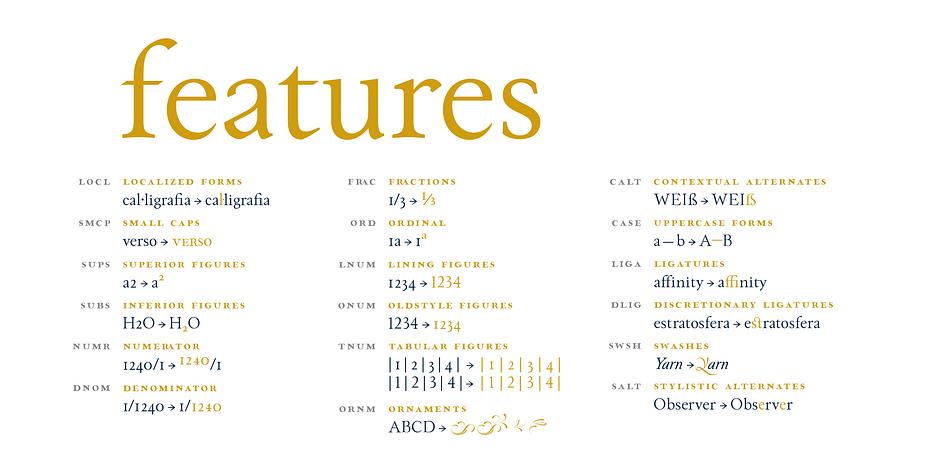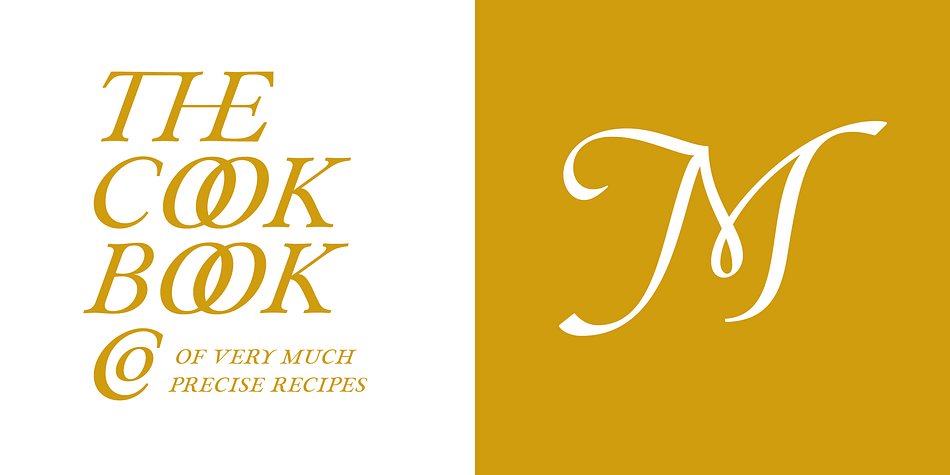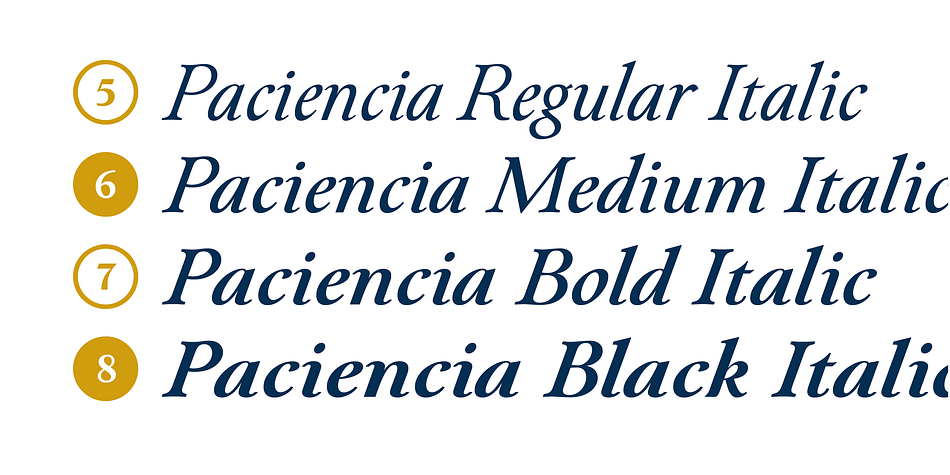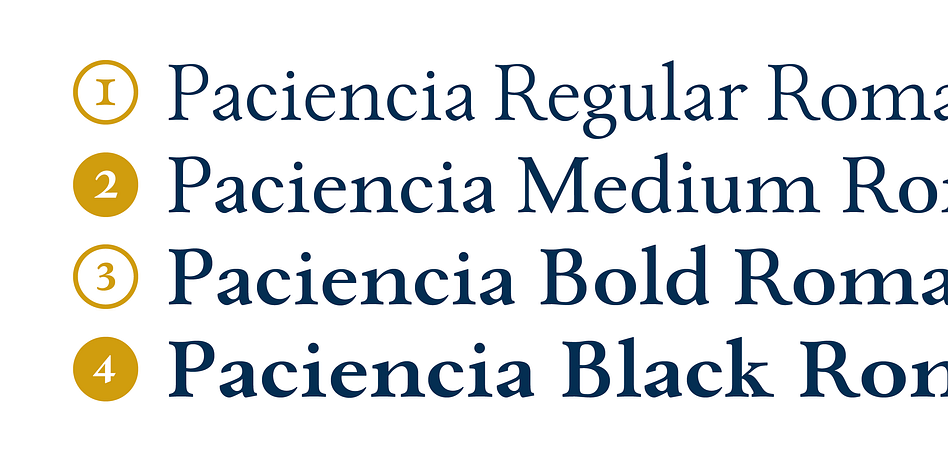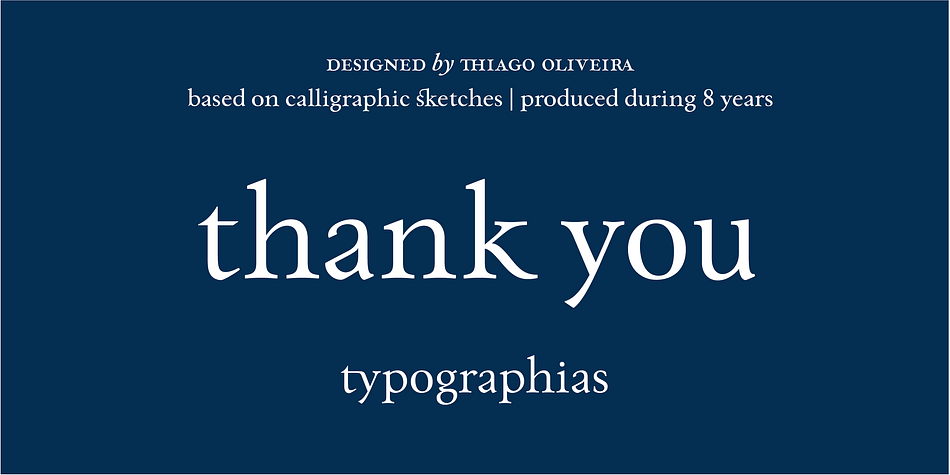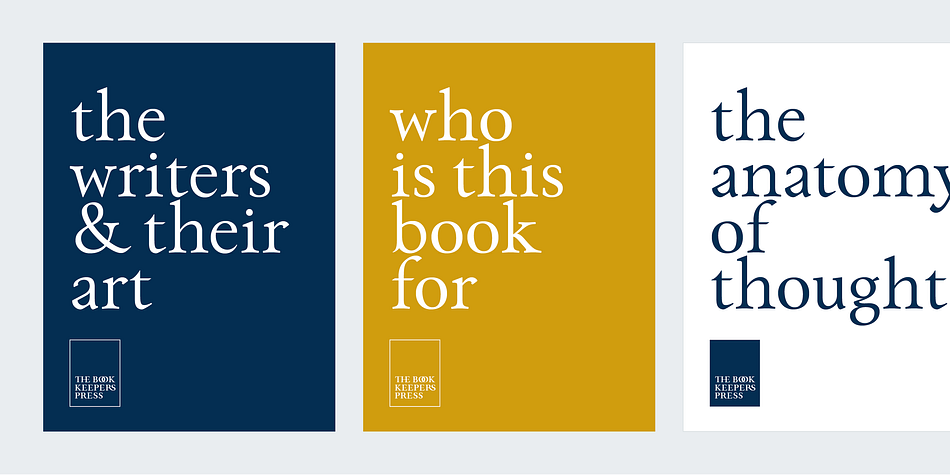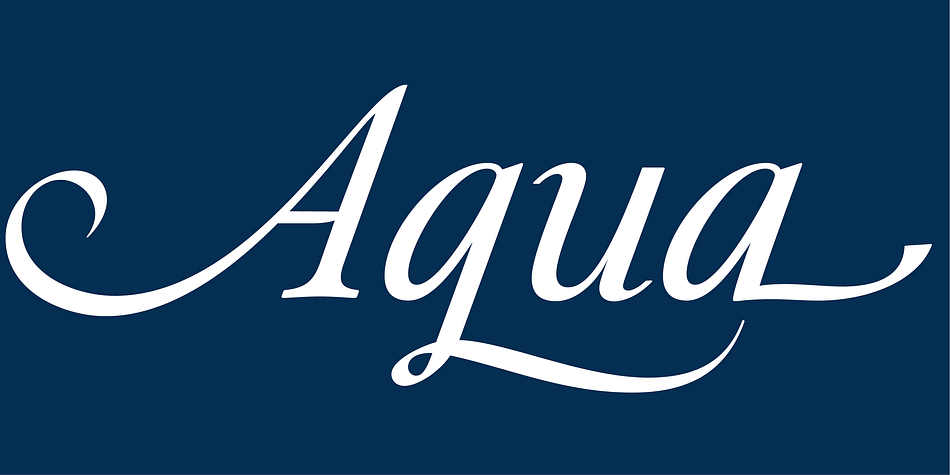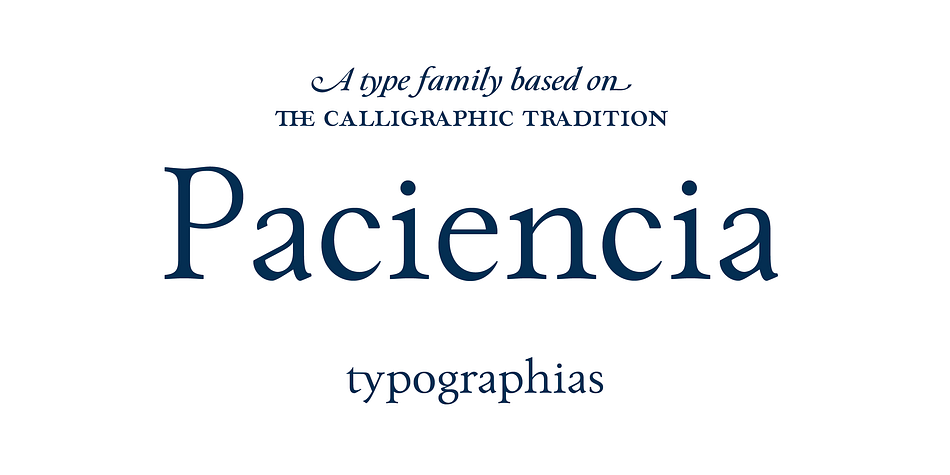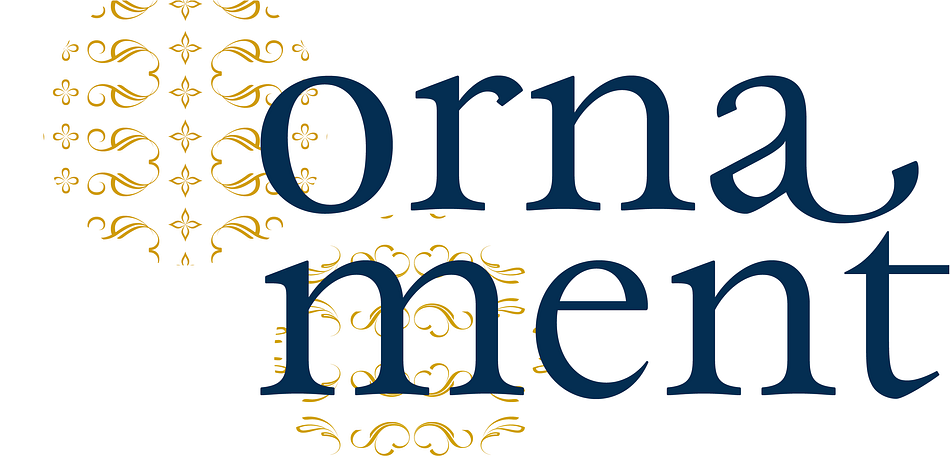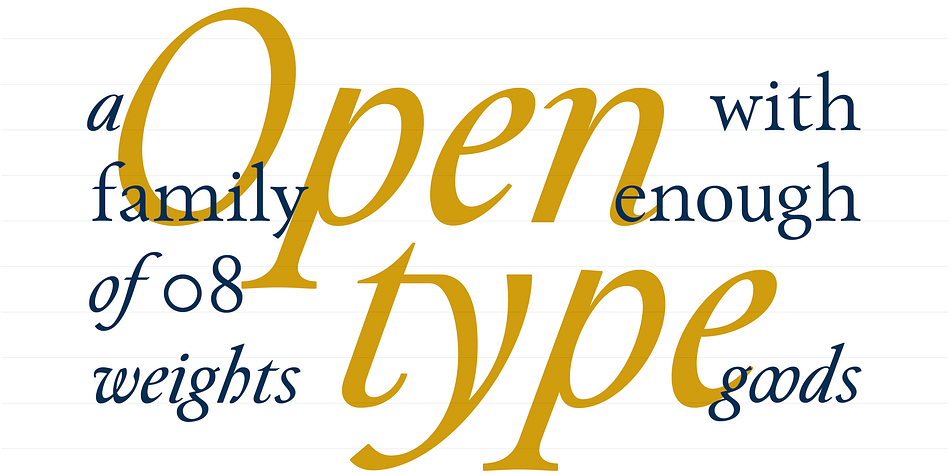
Designed by Thiago Oliveira, Paciencia is a serif font family. This typeface has eight styles and was published by Typographias.
Paciencia is a humanist serif text family, with strong roots in the calligraphic hand, coming out of sketches made with the broad nib pen, and being slowly developed and improved through the course of 8 years.
It comes in 8 weights: Regular, Medium, Bold and Black each with its Italic.